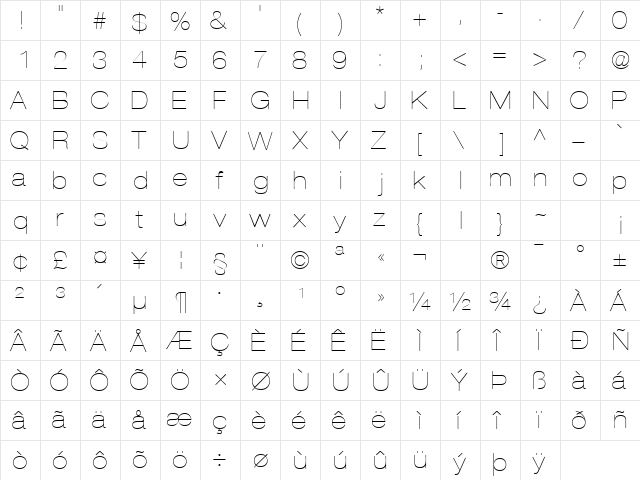
ContextRepriseLightExpSSK
Design Context for ContextRepriseLightExpSSK Typeface
ContextRepriseLightExpSSK is a composed and adaptable typeface that performs quietly and consistently across a wide range of design contexts. Its slender proportions lend an understated elegance to any composition.